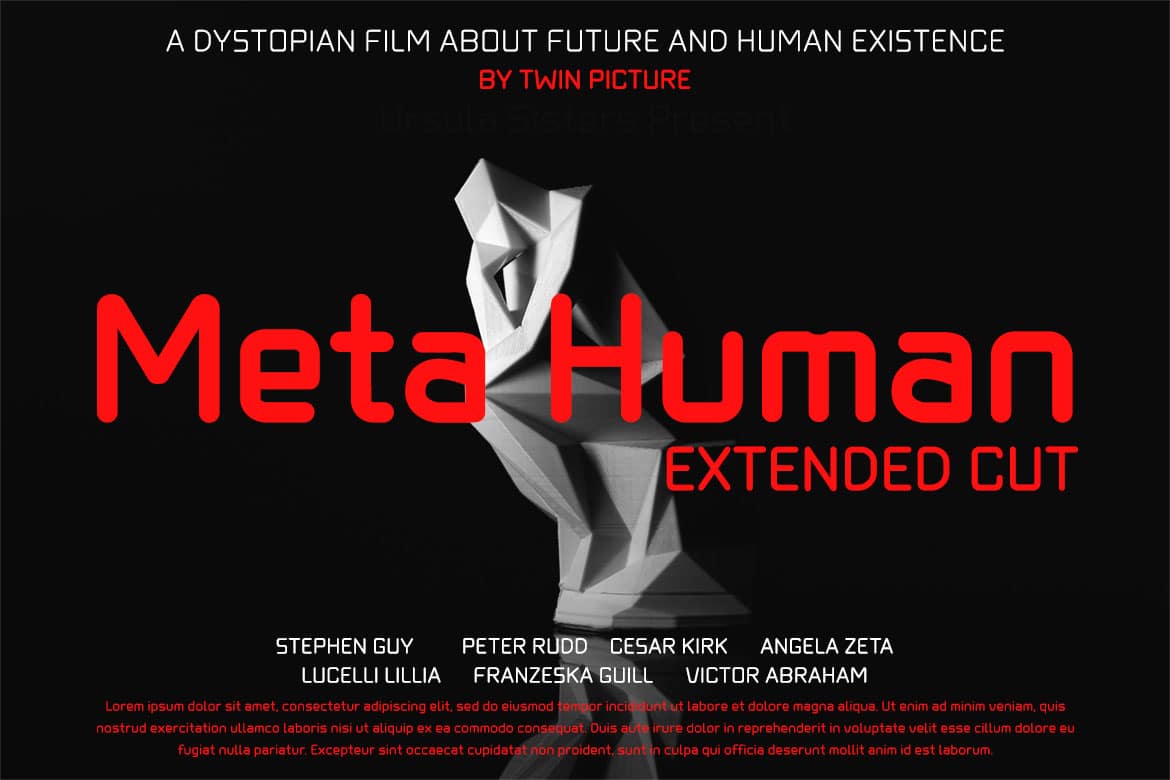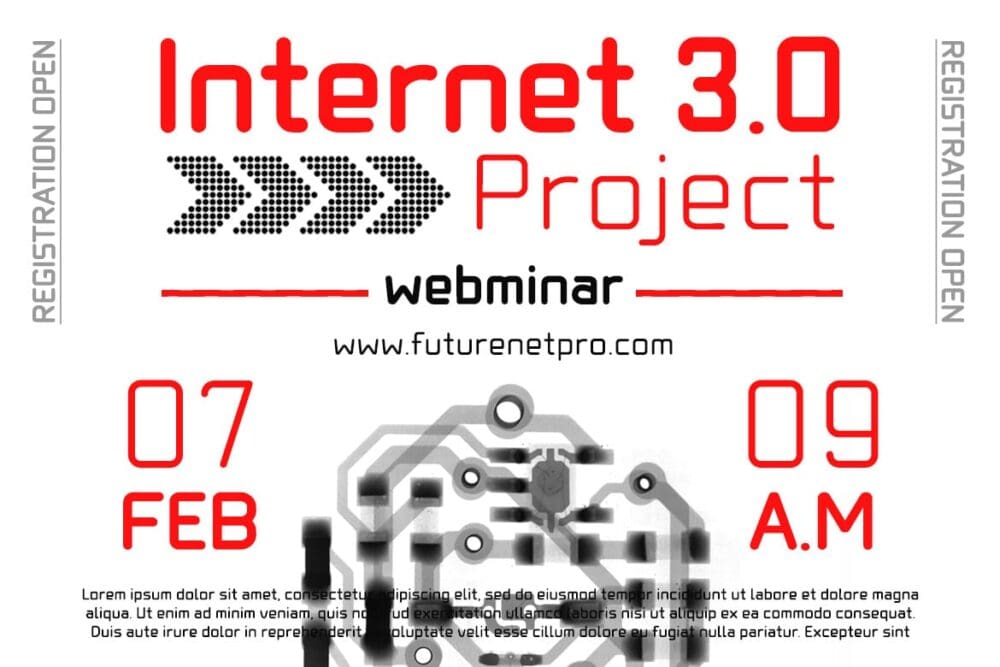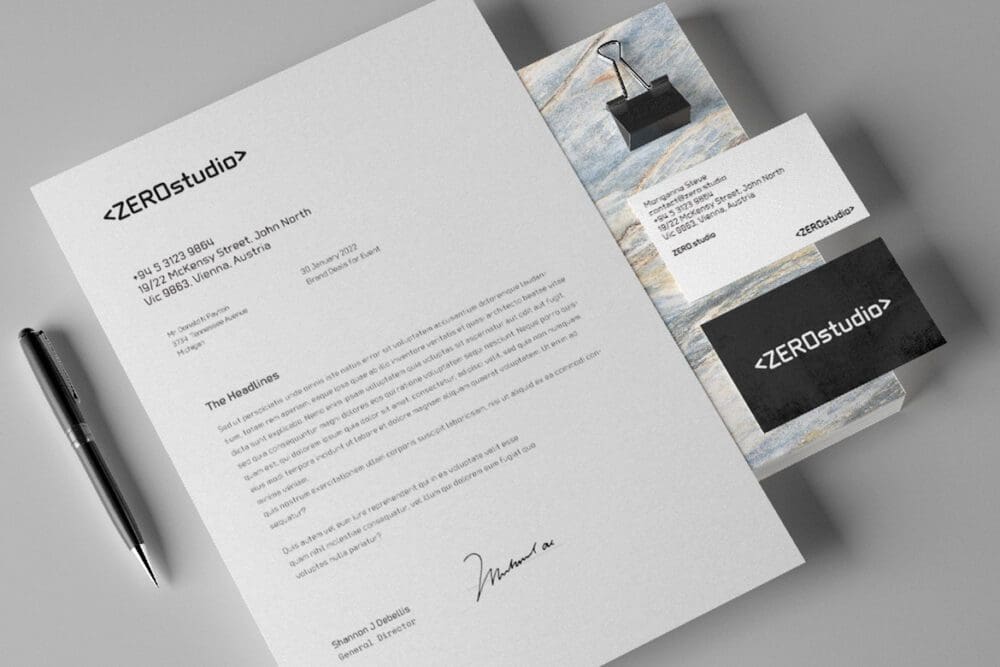
Sogeh Font
Sogeh is a Sanserif Font with a simple and straightforward design. This basic font has a modern shape and an exotic appearance while being comfortable and attractive to the eye. With this font, all of your special projects will look luxurious, cool, and well-liked by a large portion of your audience. Use this typeface to achieve the best possible outcomes in all of your projects.